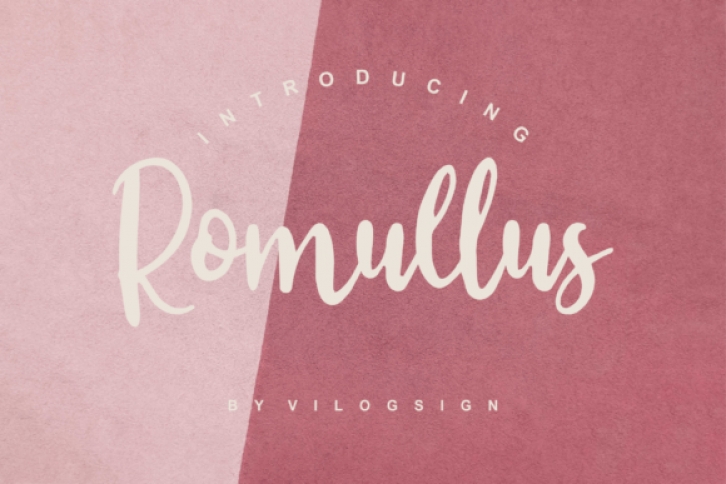
Romullus is a playful and lovely handwritten font with a bold authentic twist. Get inspired by its authentic charm and turn any design idea into a stand out.